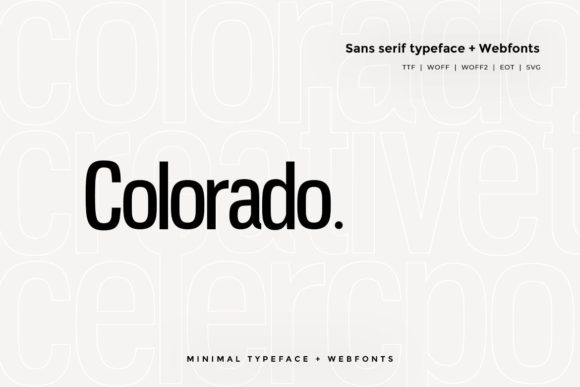
Discover the Beauty of Colorado Font: A Modern Sans Serif Typeface
The Colorado font has taken the design world by storm with its sleek, modern, and minimal sans serif style. This versatile typeface has become a go-to choice for designers and crafters looking to add a touch of sophistication to their projects. Whether you’re creating logos, posters, invitations, or any other visual material, the Colorado font is an excellent option to consider.
What Makes Colorado Font Stand Out?
The Colorado font boasts a clean and minimalist design, making it perfect for designs that require a subtle yet impactful touch. Its sans serif style gives it a modern and fresh look, allowing it to blend seamlessly with various design aesthetics. The font’s simplicity also ensures excellent legibility, making it suitable for both digital and print materials.
Key Features of Colorado Font
- Modern and Minimal Design: The Colorado font features a sleek and contemporary design that will elevate your projects with its understated elegance.
- Sans Serif Style: The font’s sans serif style gives it a clean and modern look, making it perfect for designs that require a touch of sophistication.
- Excellent Legibility: The Colorado font is designed with legibility in mind, ensuring that your text is clear and easy to read.
- Versatile: This typeface is suitable for a wide range of design projects, from logos and posters to invitations and more.
Use Cases for Colorado Font
The Colorado font is an excellent choice for various design projects, including:
- Logos: Create a lasting impression with a modern and sleek logo that incorporates the Colorado font.
- Posters: Add a touch of sophistication to your posters with this elegant typeface.
- Invitations: Make your invitations stand out with the Colorado font’s clean and minimalist design.
- Digital and Print Materials: Use the Colorado font for your website, social media graphics, brochures, and more.
Why Designers and Crafters Love Colorado Font
Designers and crafters have fallen in love with the Colorado font due to its unique combination of style and versatility. Here are a few reasons why:
- Easy to Pair: The Colorado font pairs well with various typefaces, making it easy to mix and match with other fonts.
- Customizable: The font’s simplicity allows for easy customization, enabling you to adapt it to your design needs.
- High-Quality: The Colorado font is designed with high-quality in mind, ensuring that your projects look professional and polished.
Tips for Using Colorado Font Effectively
To get the most out of the Colorado font, consider the following tips:
- Use it Sparingly: Don’t overuse the Colorado font – use it sparingly to create visual interest and emphasis.
- Experiment with Sizes: Play with different font sizes to create visual hierarchy and add depth to your design.
- Pair it with Images: Combine the Colorado font with high-quality images to create stunning visual effects.
| Font Name | Colorado Font |
| Author | Webhance |
The Colorado font is a modern and minimal sans serif typeface that has captured the hearts of designers and crafters worldwide. Its versatility, legibility, and sleek design make it an excellent choice for a wide range of design projects. Whether you’re creating logos, posters, invitations, or any other visual material, the Colorado font is sure to elevate your designs with its understated elegance.